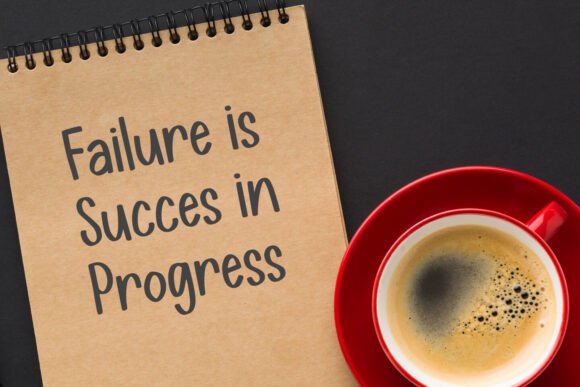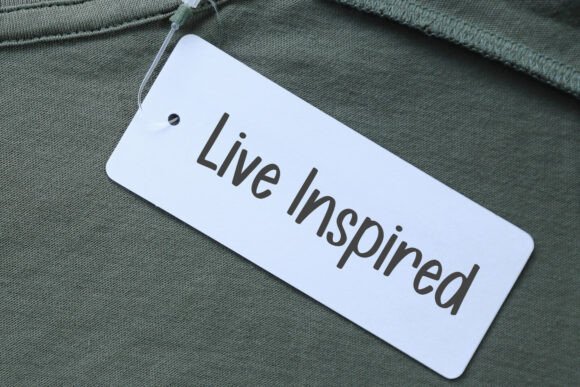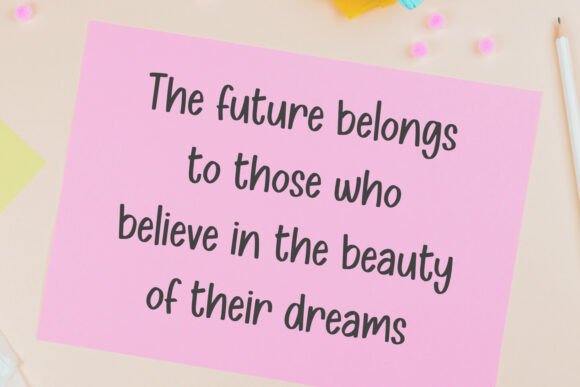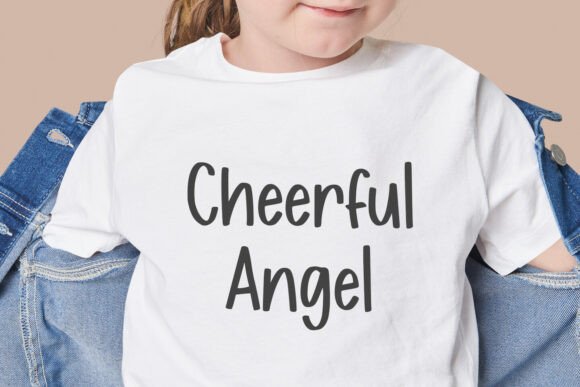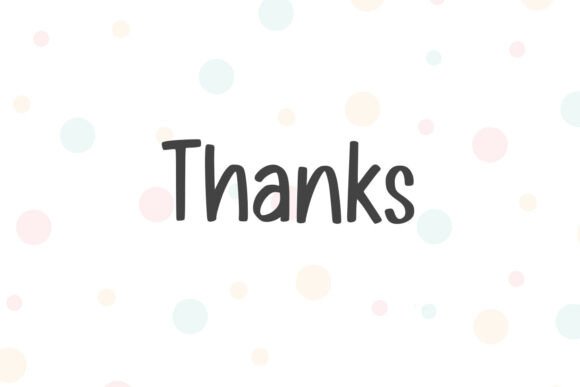
Introducing Chapter One Font: A Sweet and Friendly Handwritten Delight
Are you on the hunt for a font that can add a touch of warmth and personality to your designs? Look no further than Chapter One Font, a sweet and friendly handwritten font that’s perfect for a wide range of creative projects. With its natural and unique style, Chapter One is incredibly versatile and can be used to bring your designs to life in a way that’s both imaginative and engaging.
The Characteristics of Chapter One Font
Chapter One Font is a beautifully crafted handwritten font that’s designed to evoke a sense of friendliness and approachability. Its natural, flowing lines and subtle imperfections give it a delightfully human feel that’s perfect for designs that need to connect with their audience on a personal level. Whether you’re working on a branding project, a marketing campaign, or simply a creative endeavor, Chapter One Font is the perfect choice for adding a touch of warmth and personality to your work.
What Makes Chapter One Font So Versatile?
So, what makes Chapter One Font so versatile? The answer lies in its unique style, which is both elegant and approachable. This font is not too formal or too casual, making it perfect for a wide range of designs, from:
- Marketing materials and advertisements
- Web designs and blogs
- Stationery and greeting cards
Whether you’re working on a digital project or a physical one, Chapter One Font is the perfect choice for adding a touch of personality and style to your design.
The Benefits of Using Chapter One Font
So, why choose Chapter One Font for your next design project? Here are just a few benefits of using this amazing font:
- Unique and eye-catching: Chapter One Font is a one-of-a-kind font that’s sure to grab attention and make your designs stand out.
- Easy to read: Despite its unique style, Chapter One Font is incredibly easy to read, making it perfect for body text and headlines.
- Versatile: As mentioned earlier, Chapter One Font is incredibly versatile and can be used for a wide range of designs and projects.
- Imagination is the limit: With Chapter One Font, the only limit is your imagination! Use it to create unique and imaginative designs that reflect your personality and style.
How to Use Chapter One Font in Your Designs
Using Chapter One Font in your designs is easy! Here are a few tips to get you started:
- Pair it with other fonts: Chapter One Font pairs perfectly with other fonts, so don’t be afraid to experiment and find the perfect combination for your design.
- Experiment with colors: Chapter One Font looks great in a variety of colors, so try experimenting with different hues and shades to find the perfect look for your design.
- Use it for headlines and body text: Chapter One Font is perfect for both headlines and body text, making it a great choice for a wide range of designs.
In conclusion, Chapter One Font is a sweet and friendly handwritten font that’s perfect for designers and crafters who want to add a touch of personality and style to their designs. With its natural and unique style, Chapter One Font is incredibly versatile and can be used for a wide range of creative projects. So why wait? Download Chapter One Font today and let your imagination run wild!